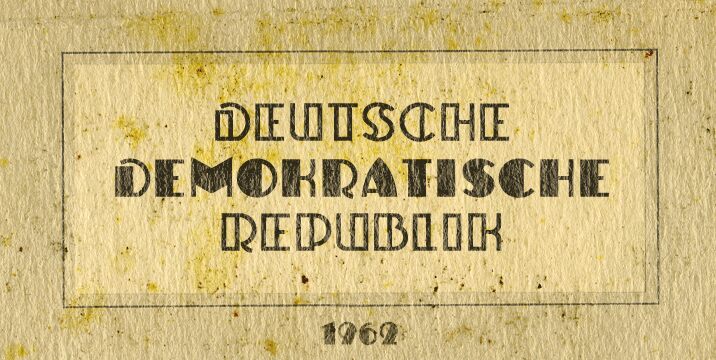
Ulbricht by Ulrich Planer is a free techno display font built around stark geometric capitals and dramatic shifts from hairline outlines to solid black forms. Circles, wedges, and sharp cutouts shape the alphabet.
It can turn a title into an architectural graphic element, making it a strong fit for electronic music posters, game interfaces, and festival branding. On album packaging and fashion merchandise, the alternating weights create a severe, experimental identity rather than a uniform typographic texture. The repeated round bodies, triangular joins, and sliced corners also echo machinery, control panels, and futuristic product graphics.